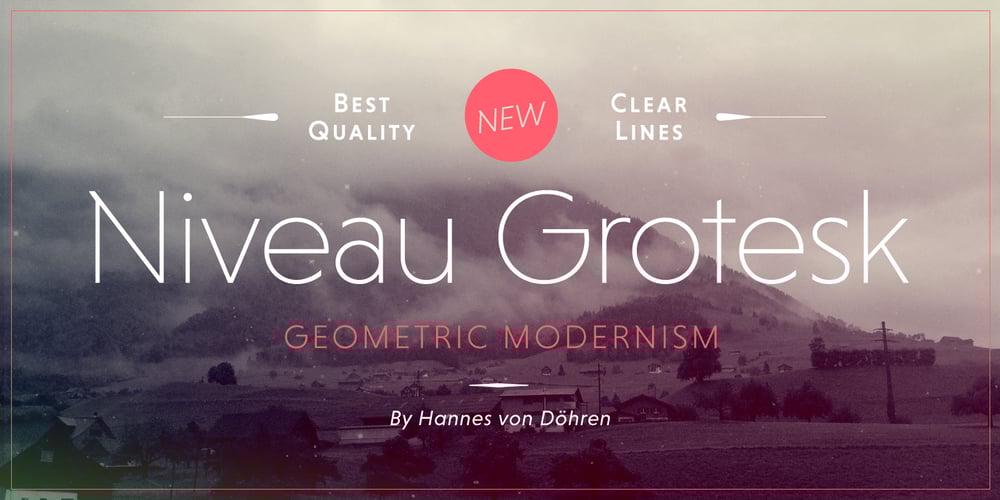
Niveau Grotesk
Niveau Grotesk font
Niveau Grotesk Font Family was designed by Hannes von Döhren and published by HVD Fonts. Niveau Grotesk contains 18 styles and family package options. Niveau Grotesk—the companion of Niveau Serif—is a type family of six weights plus matching italics and small caps. It was designed by Hannes von Döhren in 2013. Influenced by classical nineteenth-century faces, the fonts are based on geometric forms. Because of its straight architecture, Niveau Grotesk has a “punch” in big sizes but is very legible in smaller sizes and longer texts—in print or on screen. Niveau Grotesk is equipped for complex, professional typography with alternate letters, arrows, fractions and an extended character set to support Central and Eastern European as well as Western European Languages.